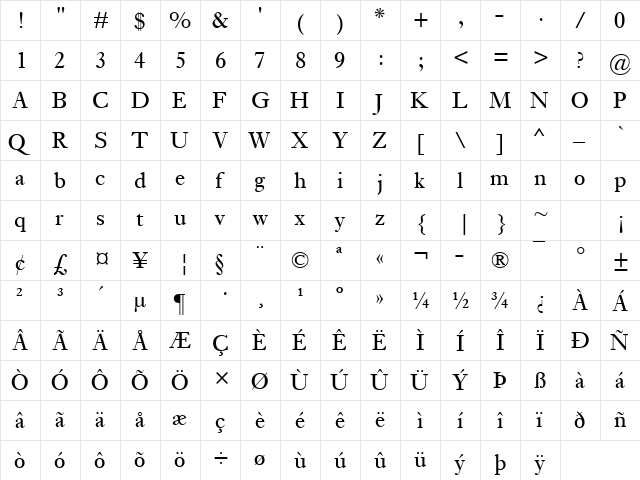
Ehrhardt MT Regular
| Foundry | Agfa Monotype Corporation |
| Designer | Stanley Morison |
Design Context for Ehrhardt MT Typeface
Ehrhardt MT is a composed and adaptable typeface that performs quietly and consistently across a wide range of design contexts.